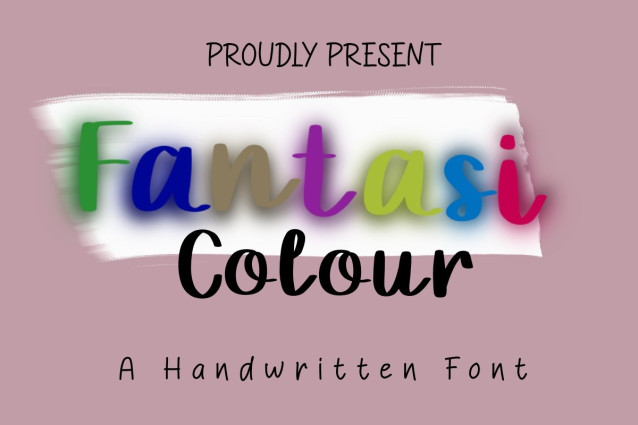
Fantasi Colour Font
Fantasi Colour Font, suitable for any design needs : logo, branding, modern advertising design, logos, poster quote, book / cover Title, editorial design, website / blog, card, t-shirts, and any hand-lettered needs.